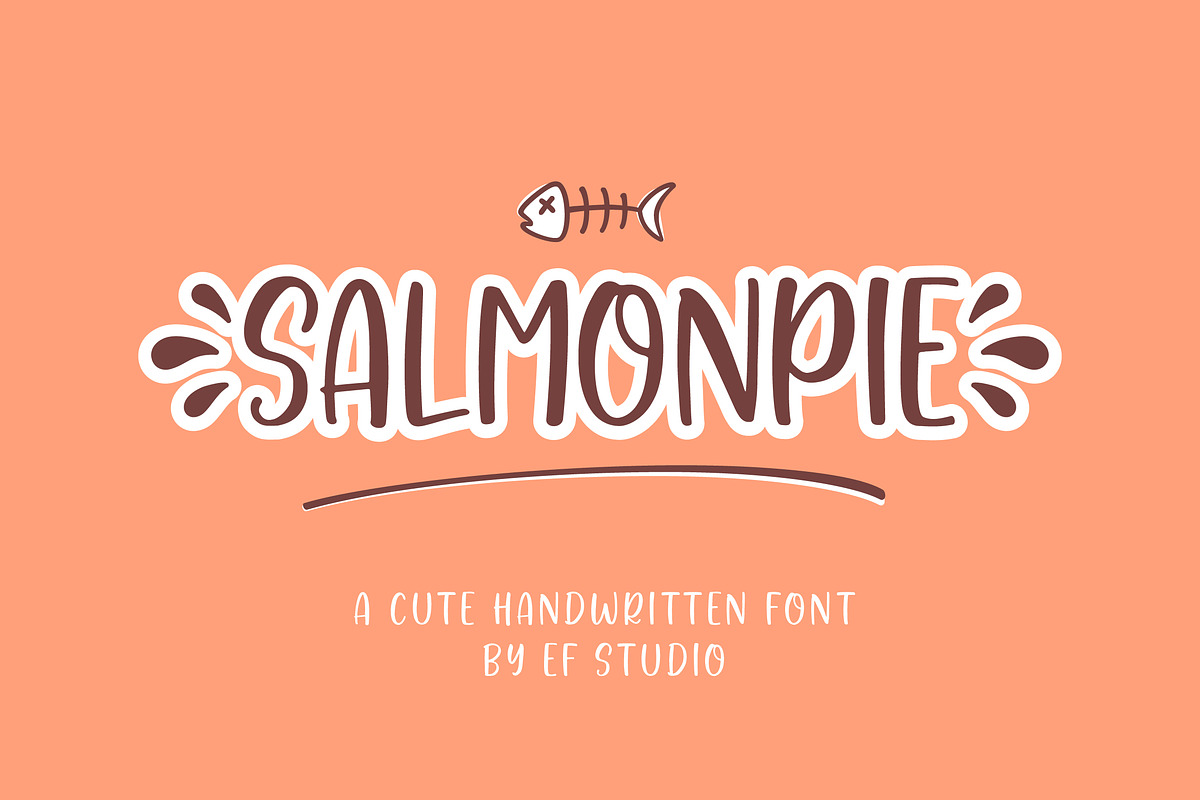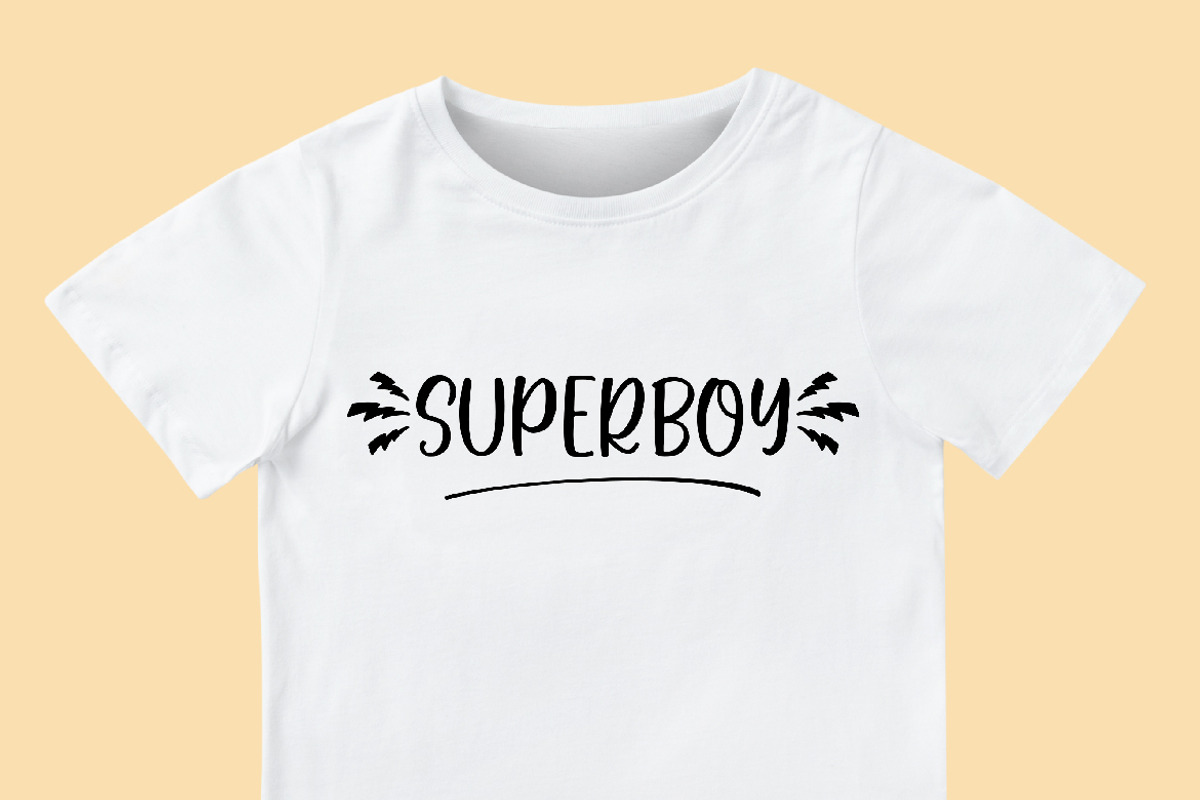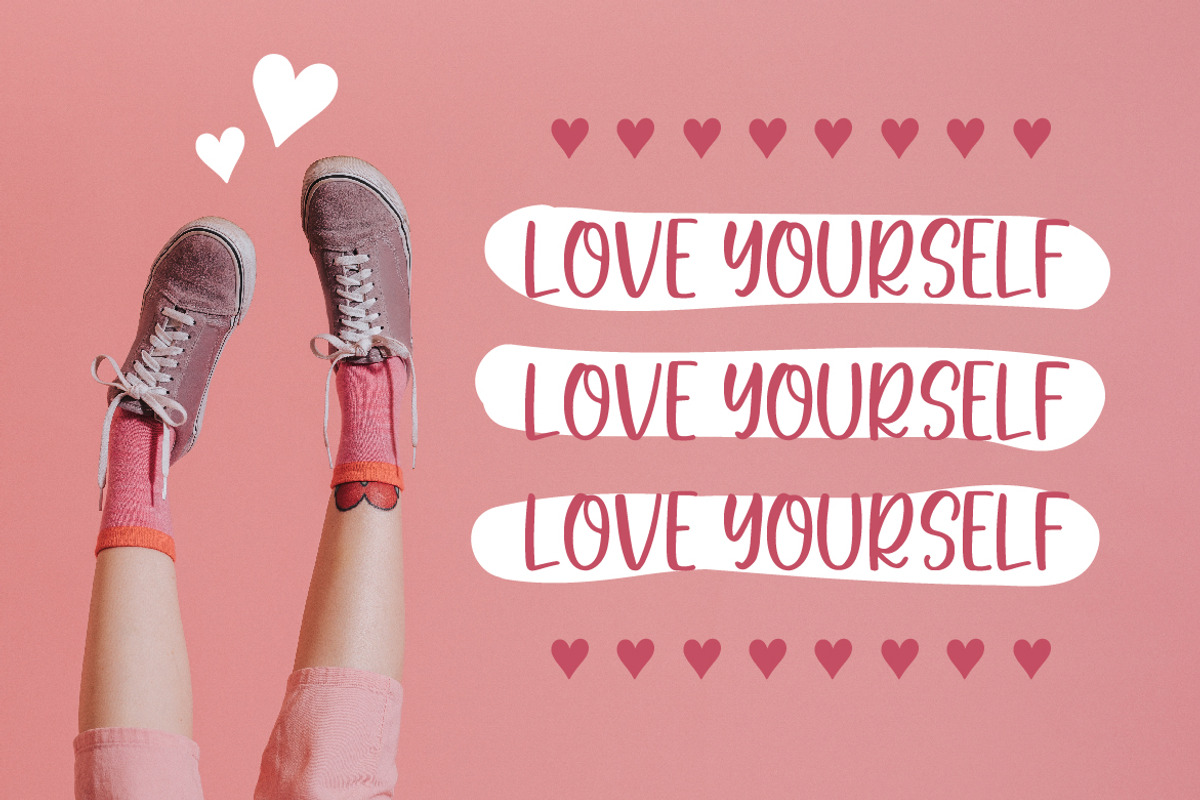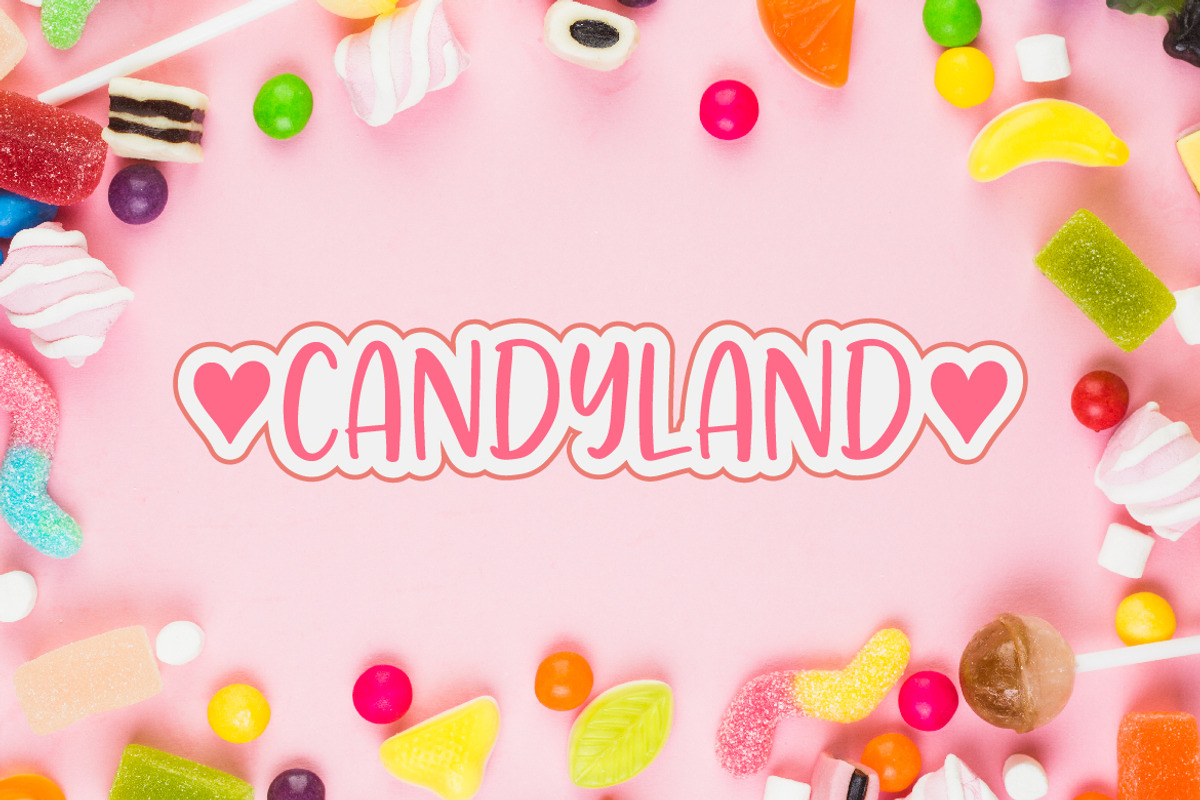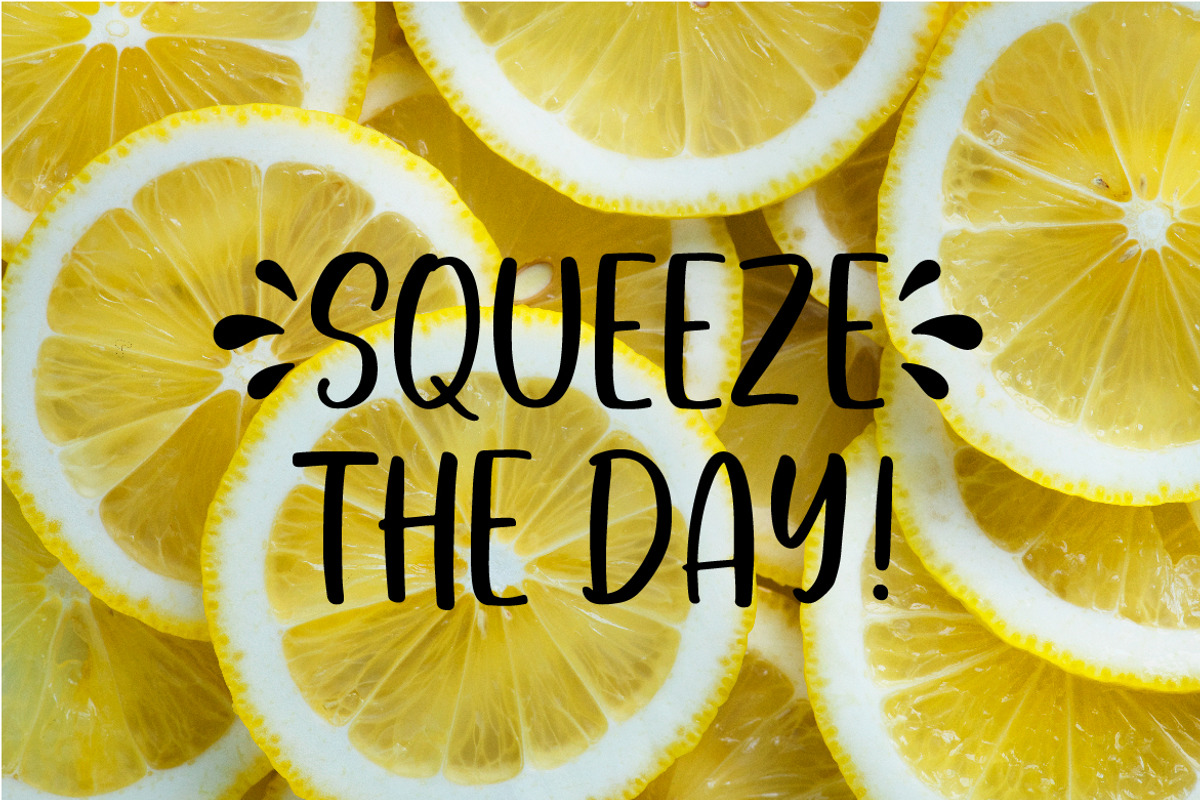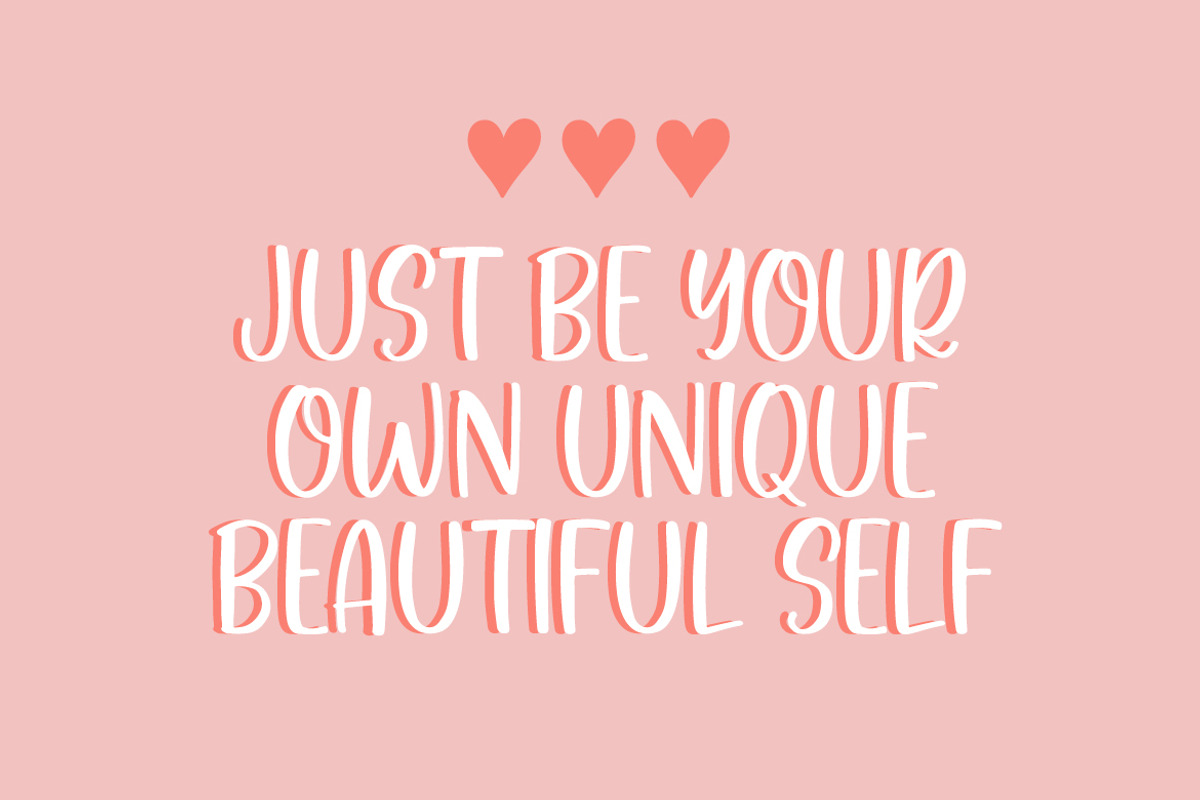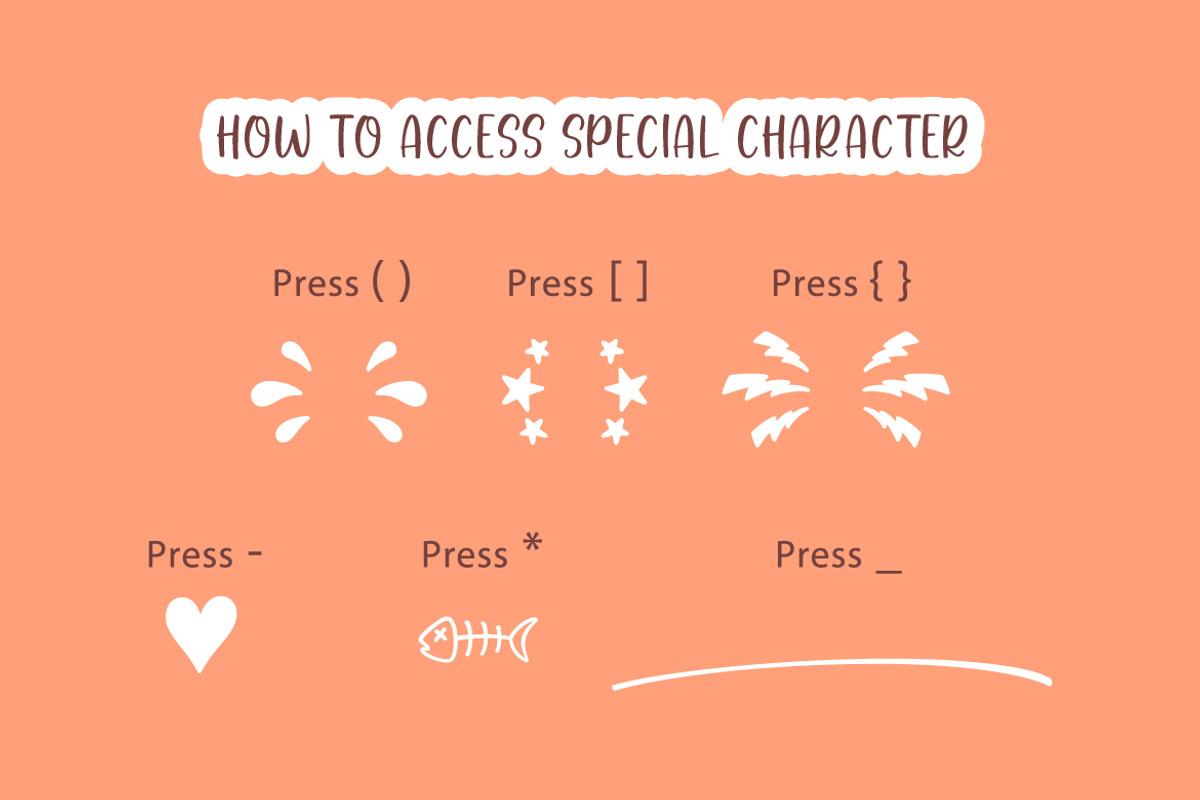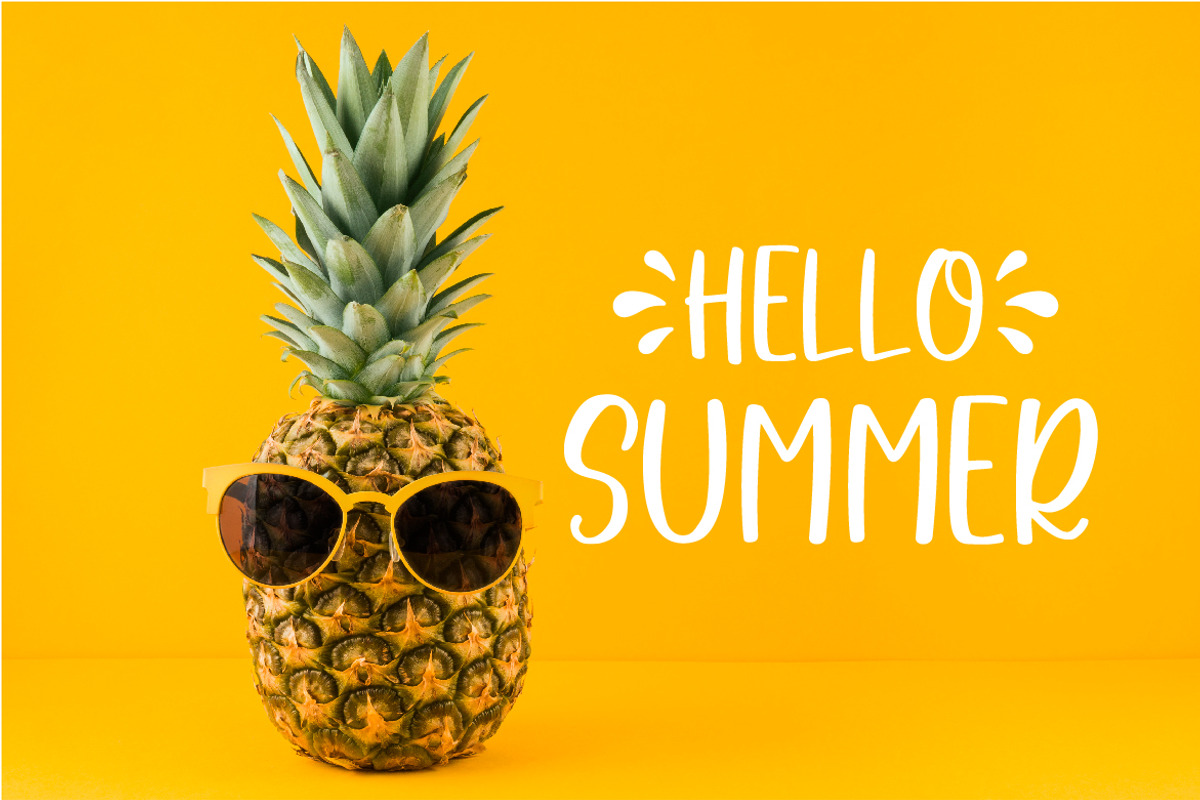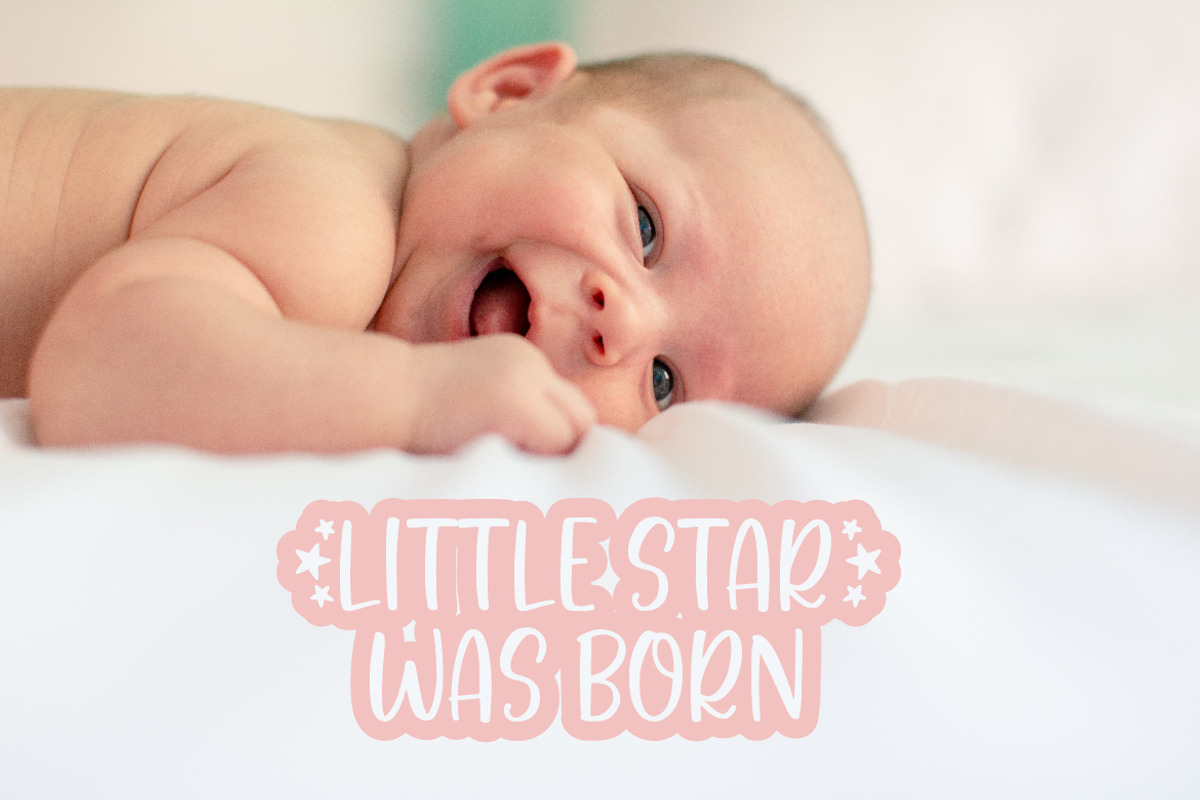
Salmonpie | A Cute Handwritten Font
Salmonpie is a cute handwritten font with fun and quirky caps letters. It has extras swashes and special characters that can beautify your project. This font suitable for display, branding, quotation, invitation, decoration, and more!
Follow this instruction to figure out special characters like water splash, fish skull, thunder, etc :
- Press ( ) = Water Splash
- Press [ ] = Stars
- Press { } = Thunder
- Press - = Love
- Press * = Fish Skull
- Press _ = Swash